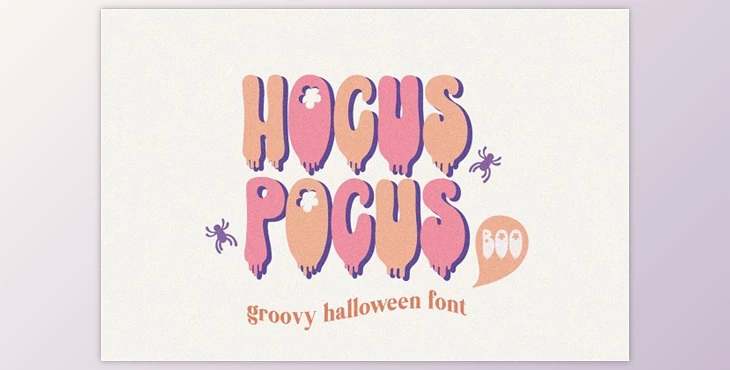
Hocus Pocus Boo Halloween Font: Elevate Your Halloween Creativity with Hocus Pocus Boo Font!
Unleash your Halloween spirit with the versatile Hocus Pocus Boo Font, perfect for many creative projects. Whether planning a spooktacular party or diving into DIY crafts, this handwritten font brings an enchanting touch to your designs.
Ideal for:
- Halloween Party Invitations: Craft captivating invitations that set the tone for your Halloween soirée.
- DIY Halloween Decorations: Personalize banners, stickers, signs, wall posters, pillows, and mugs for a charming home or party venue.
- Craft Projects: Infuse your scrapbooking, Cricut projects, and sublimation designs with a touch of Halloween magic.
- T-shirt Designs: Print spooktacular t-shirts featuring eerie or playful messages for a unique Halloween wardrobe.
- School Projects: Enhance school presentations or projects with a Halloween theme, making learning more engaging.
- Social Media Graphics: Design attention-grabbing Halloween-themed posts for your social media accounts to captivate your followers.
- Trick-or-Treat Bags and Labels: Elevate trick-or-treat excitement with custom-designed labels and bags, making them more appealing and thematic.
Let Hocus Pocus Boo Font be your creative companion this Halloween, infusing every project with a spellbinding and handwritten charm. Bring your ideas to life and let the magic unfold!